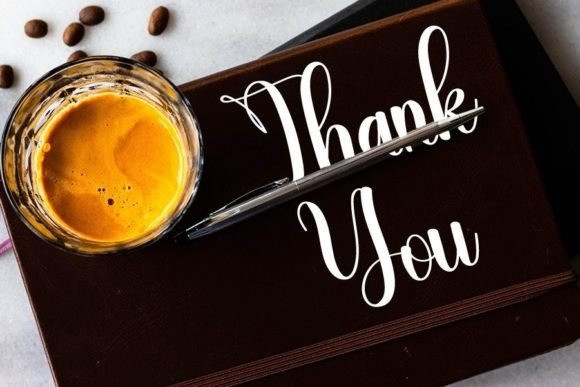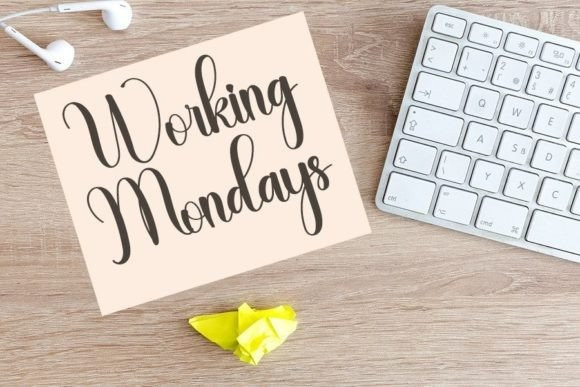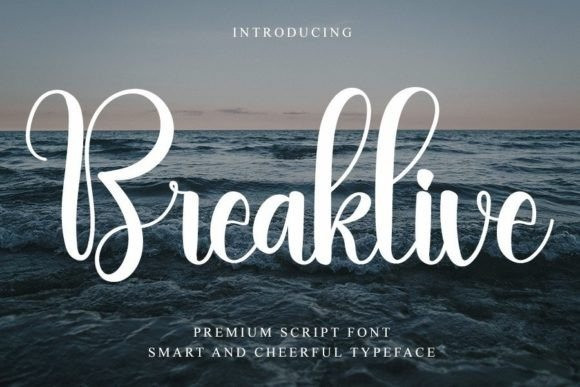
Breaklive Font
Breaklive Font is a stylish handwritten font with a contemporary atmosphere and impeccable form, inspired by a timeless classic calligraphy. Balanced and varied, this font was designed to enhance the beauty of your projects.